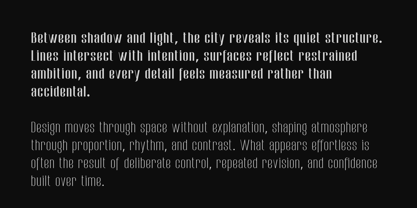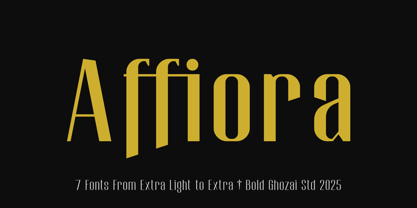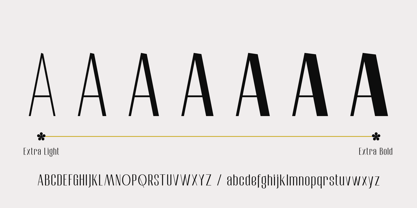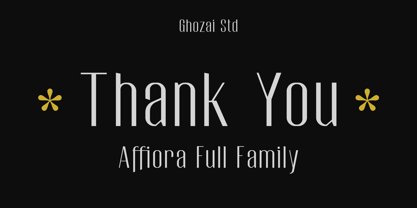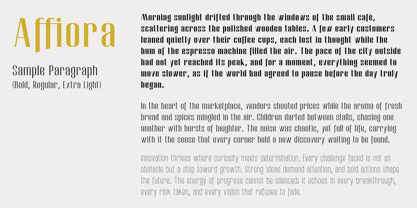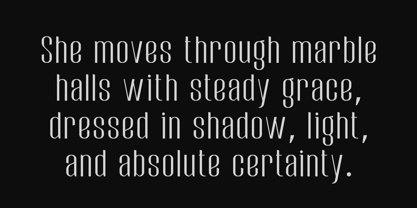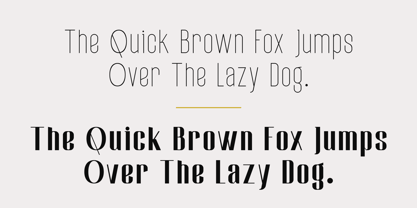
Affiora
von Ghozai Studio
Die Schriftfamilie Affiora wurde von Manzur Ghozaali entworfen und von Ghozai Studio veröffentlicht. Affiora enthält 7 Stile und Familienpaketoptionen. Mehr über diese Familie
Raffine is a versatile sans font family that includes 7 weights, ranging from Extra Light to Extra Bold. With its extensive array of weights, OpenType features, and robust multilingual glyph support,Raffine caters to diverse design needs across different languages. Its modern, clean, and aesthetic design makes it suitable for various applications, including display typography, branding, signage, magazines, and any prints. Whether you are crafting striking headlines, unique logos, or legible signage, Raffine provides both style and functionality, seamlessly adapting to different design styles and ensuring a contemporary touch in any project.
Designer: Manzur Ghozaali
Foundry: Ghozai Studio